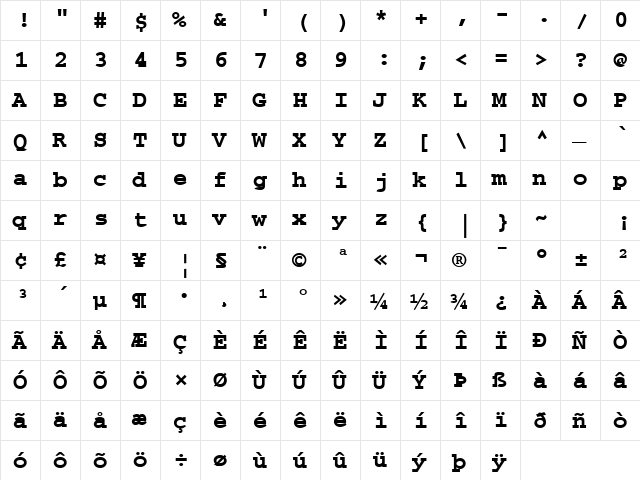
FZ BASIC 54 Bold Font Preview
FZ BASIC 54 Bold
Design Context for FZ BASIC 54 Typeface
FZ BASIC 54 offers clean, dependable letterforms without strong stylistic allegiance, making it a practical choice for designers who need flexibility. The heavy weight commands attention and anchors typographic hierarchies.